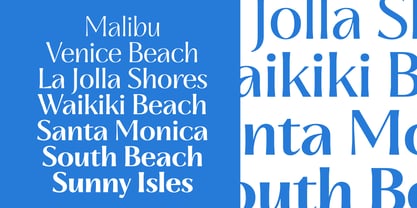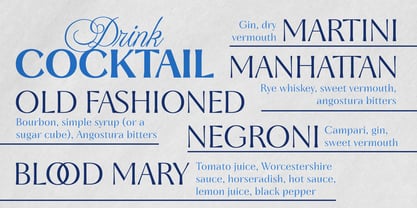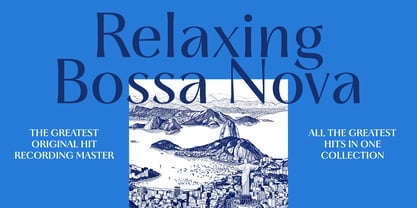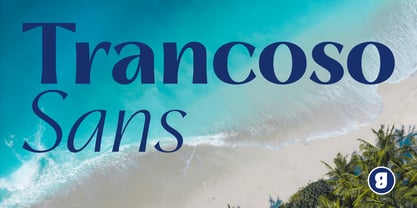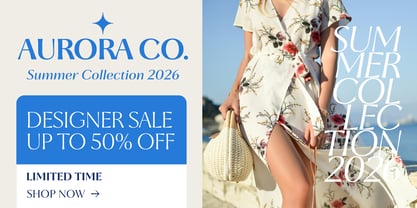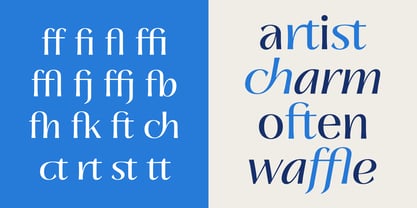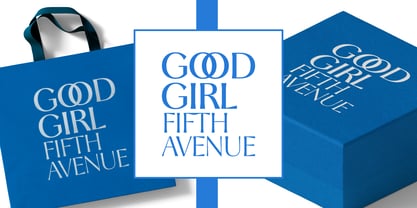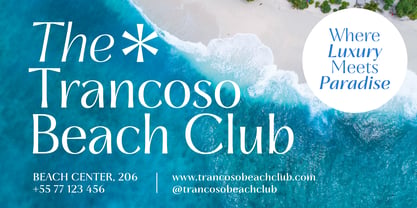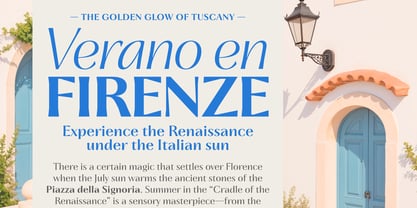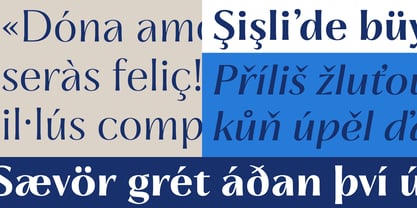
Trancoso Sans
by Genilson Santos
The Trancoso Sans Font Family was designed by Genilson Santos and published by Genilson Santos. Trancoso Sans contains 14 styles and family package options. More about this family
Trancoso Sans is a sophisticated typeface family that captures the essence of "barefoot luxury" and the vibrant, sun-drenched spirit of the Brazilian coast. Inspired by the perfect balance between raw nature and high-end design, this font was crafted for brands that want to communicate exclusivity with a warm, human soul. Trancoso Sans is more than just a sans-serif; it is a celebration of humanist design with a contemporary high-contrast twist. Its forms evoke the rhythmic movement of ocean waves and the precision of modern architecture. Featuring delicately flared terminals and a structure that prioritizes legibility without sacrificing personality, it transitions seamlessly from premium branding to editorial storytelling. The Italic styles are particularly fluid, offering a calligraphic rhythm that adds immediate flair and organic sophistication to any layout. With a versatile range of weights, Trancoso Sans covers all your visual hierarchy needs. Use the Extra Light and Light weights for ethereal invitations and high-fashion headlines, or the Bold weights for impactful signage and premium packaging.
Genilson Santos is a digital type foundry dedicated to crafting sophisticated display typefaces for the modern design landscape. With a distinct focus on high-contrast aesthetics and editorial elegance, our studio creates typography that serves as the centerpiece of visual identity projects. We believe that a typeface should be both a functional tool and a work of art. Our portfolio is characterized by expressive curves and refined details, tailored specifically for headlines, fashion branding, and luxury packaging. Beyond aesthetics, our studio prioritizes technical excellence, offering designers extensive character sets, multilingual support, and rich OpenType features—including versatile ligatures and stylistic alternates—to ensure creative freedom in every layout.